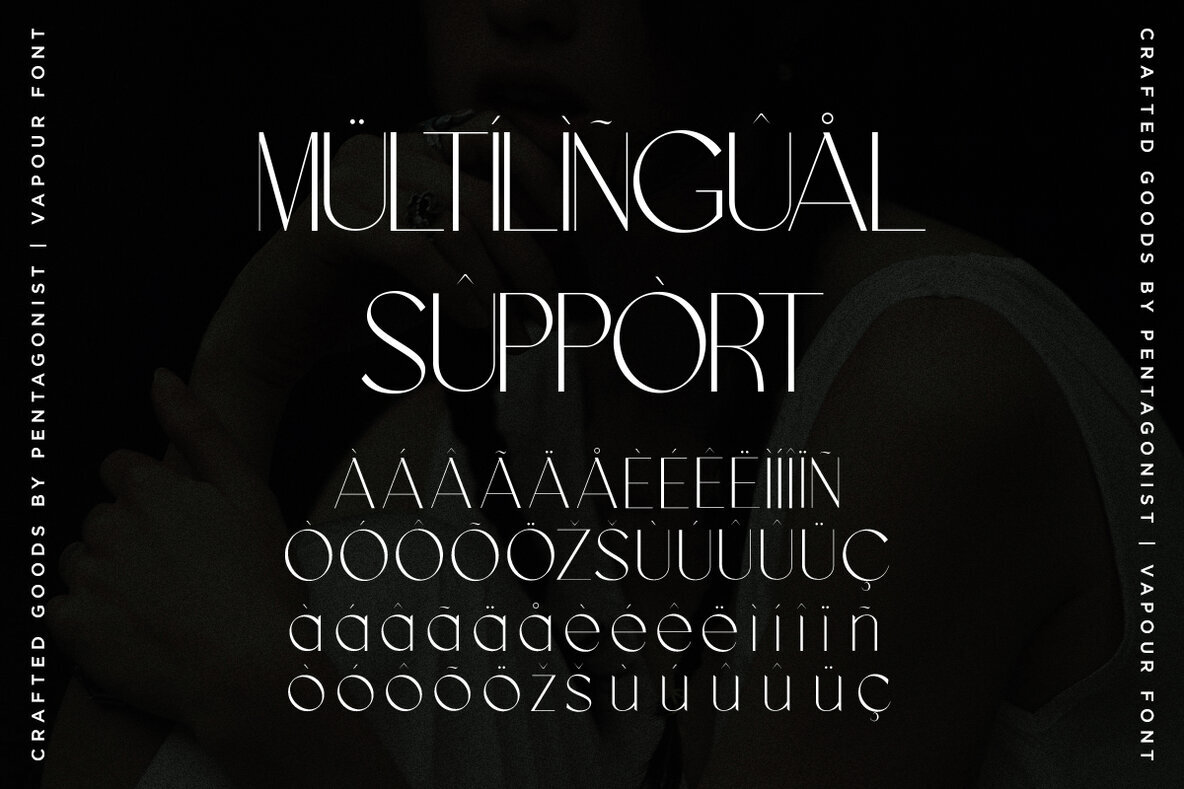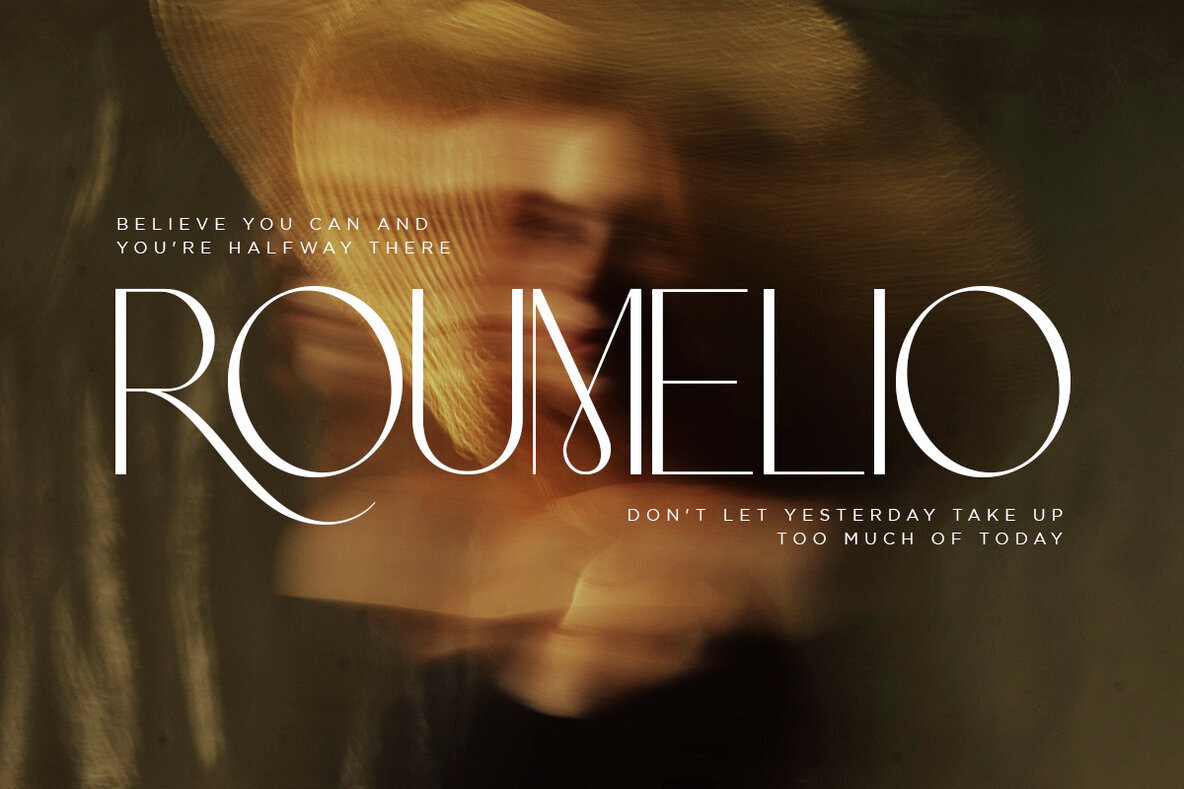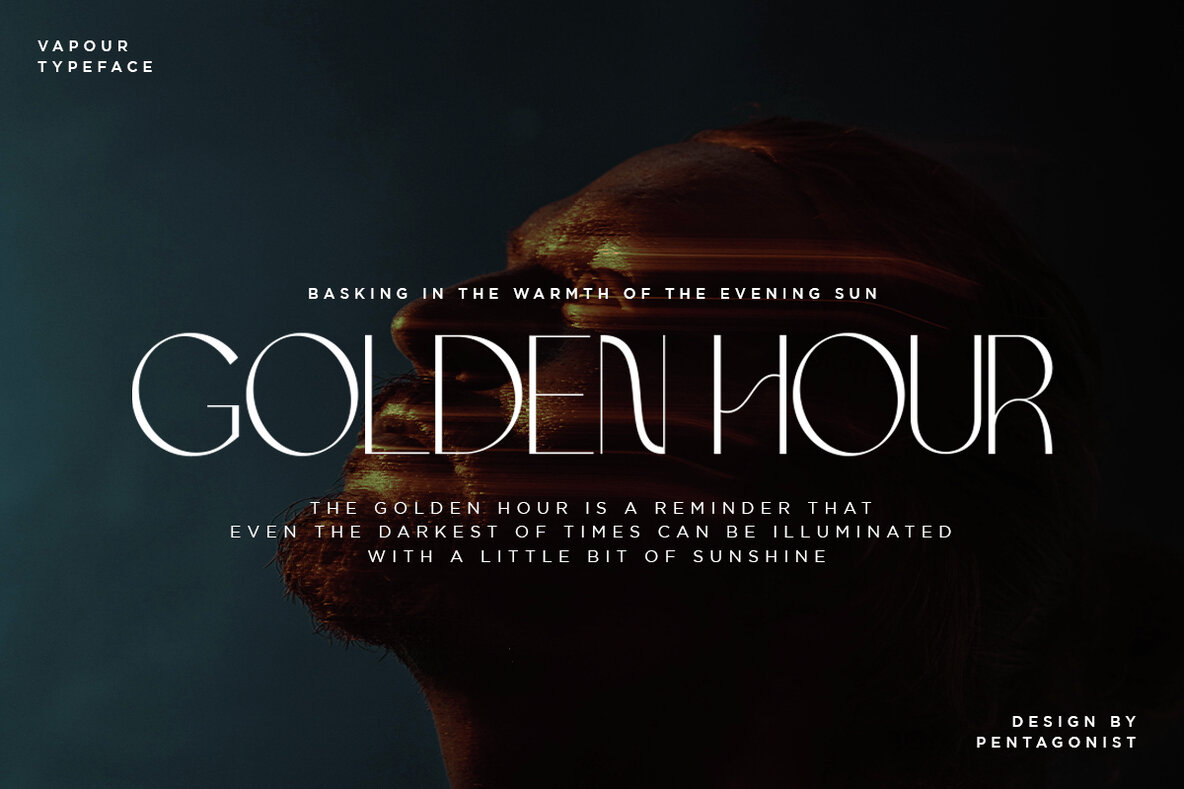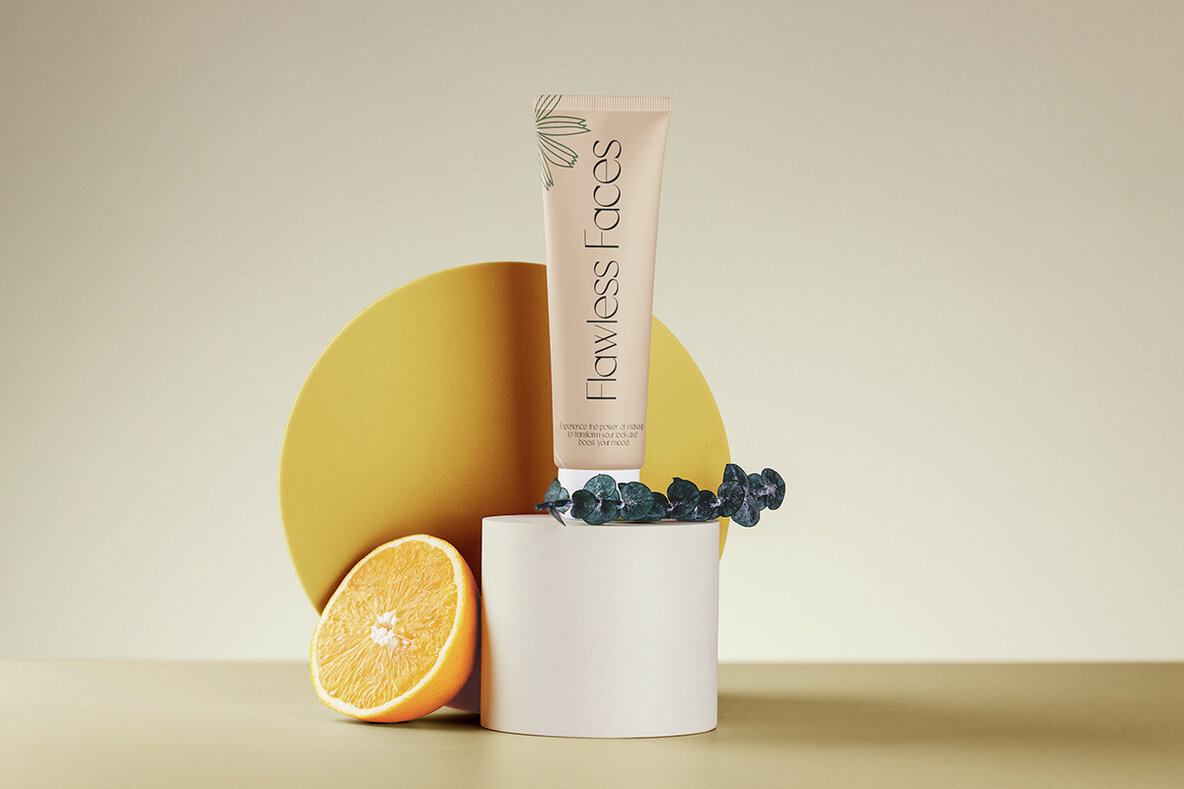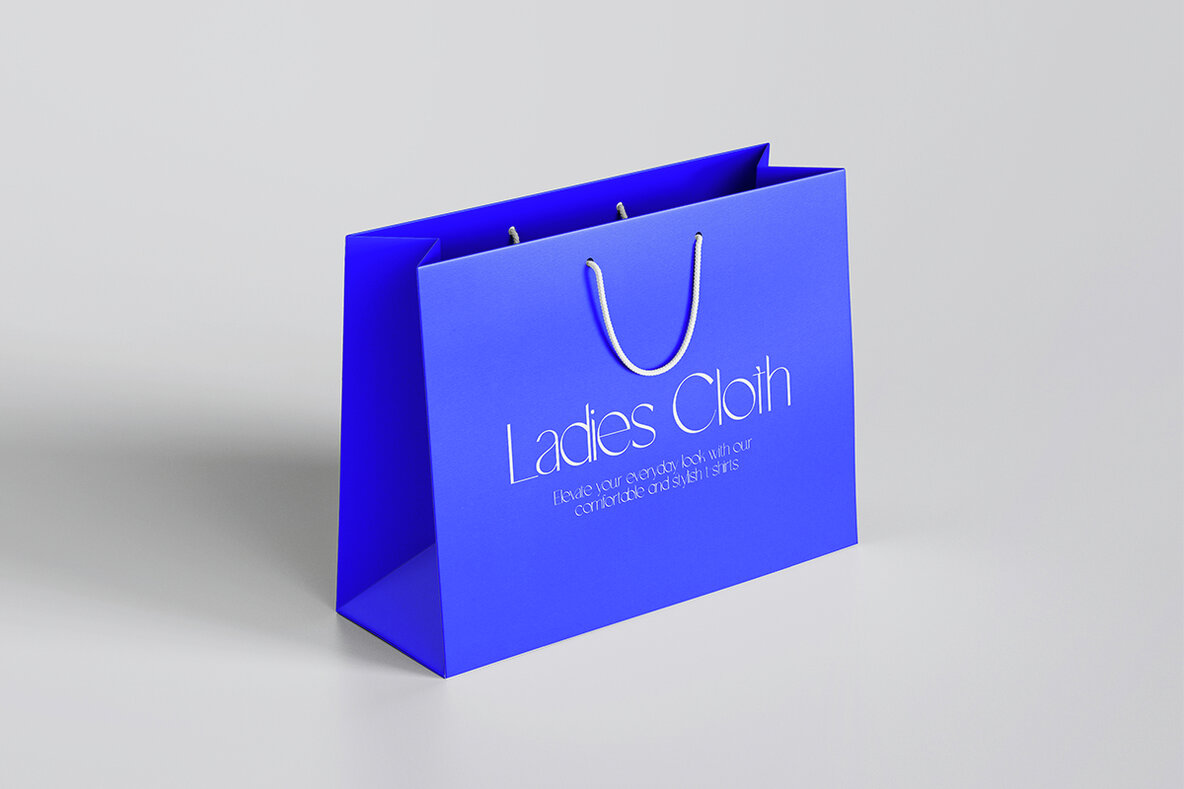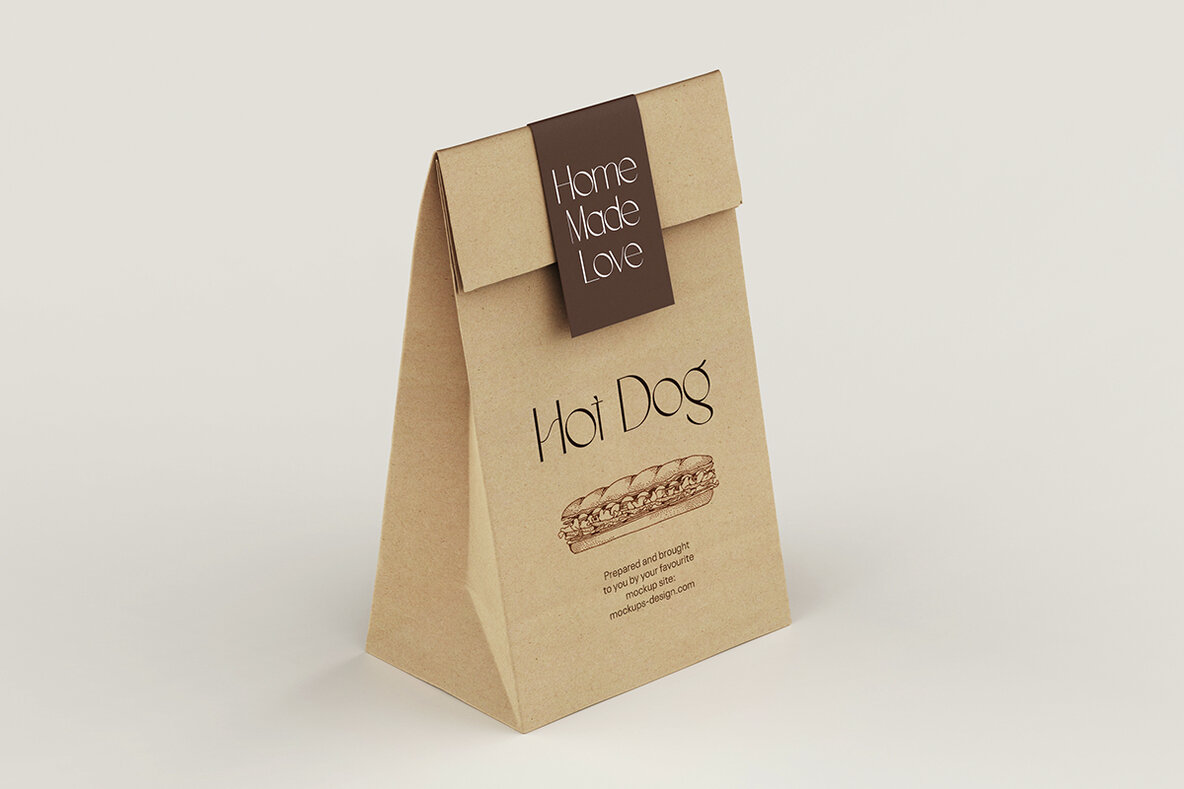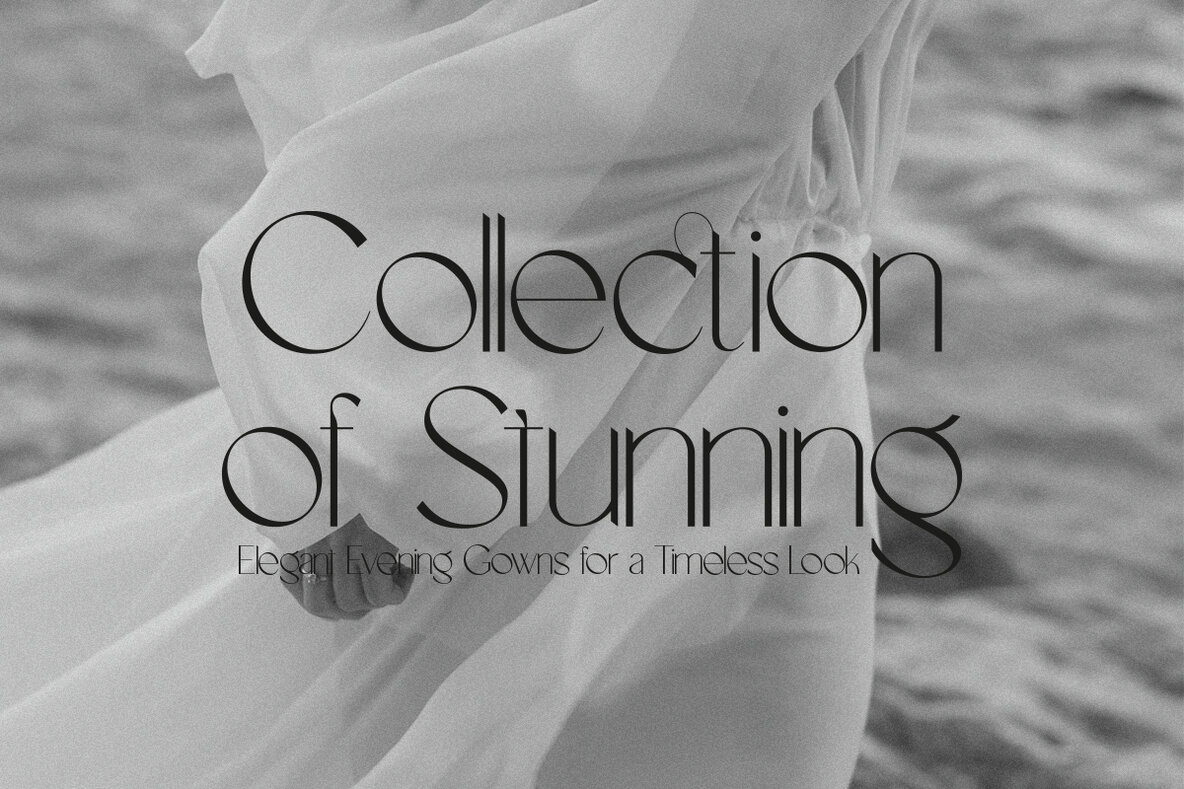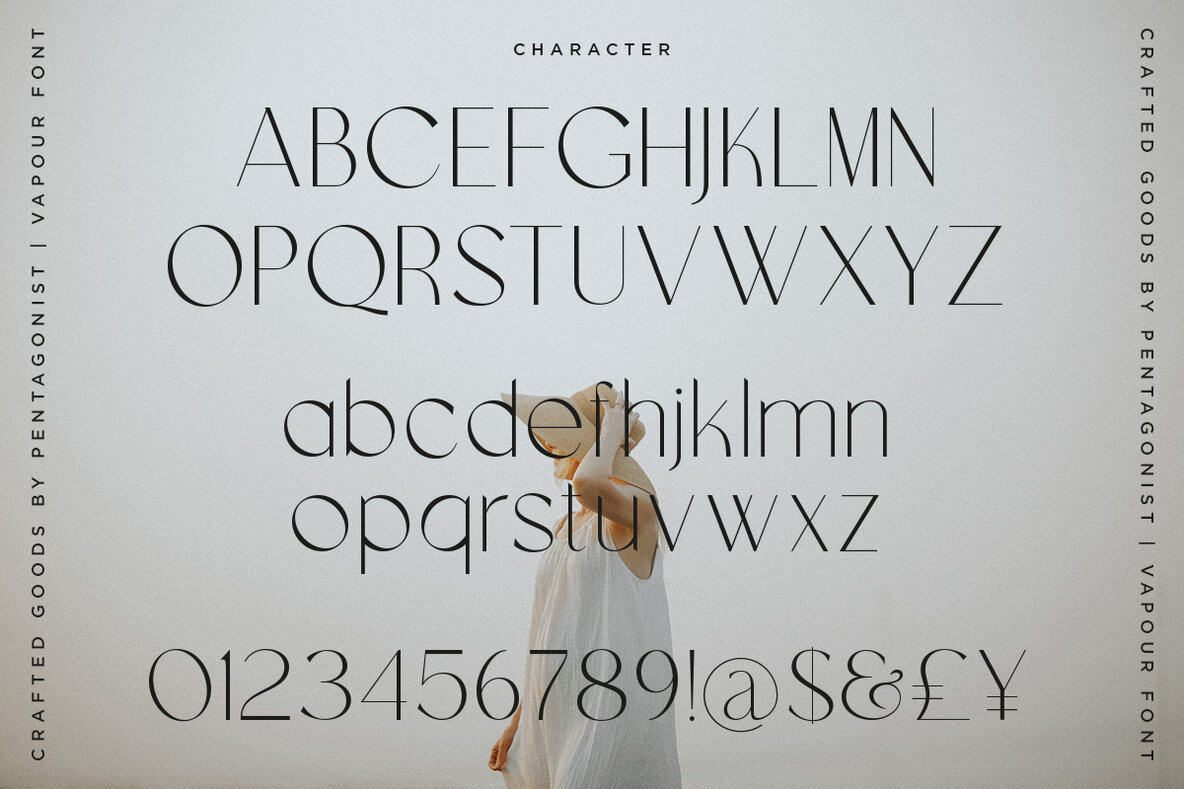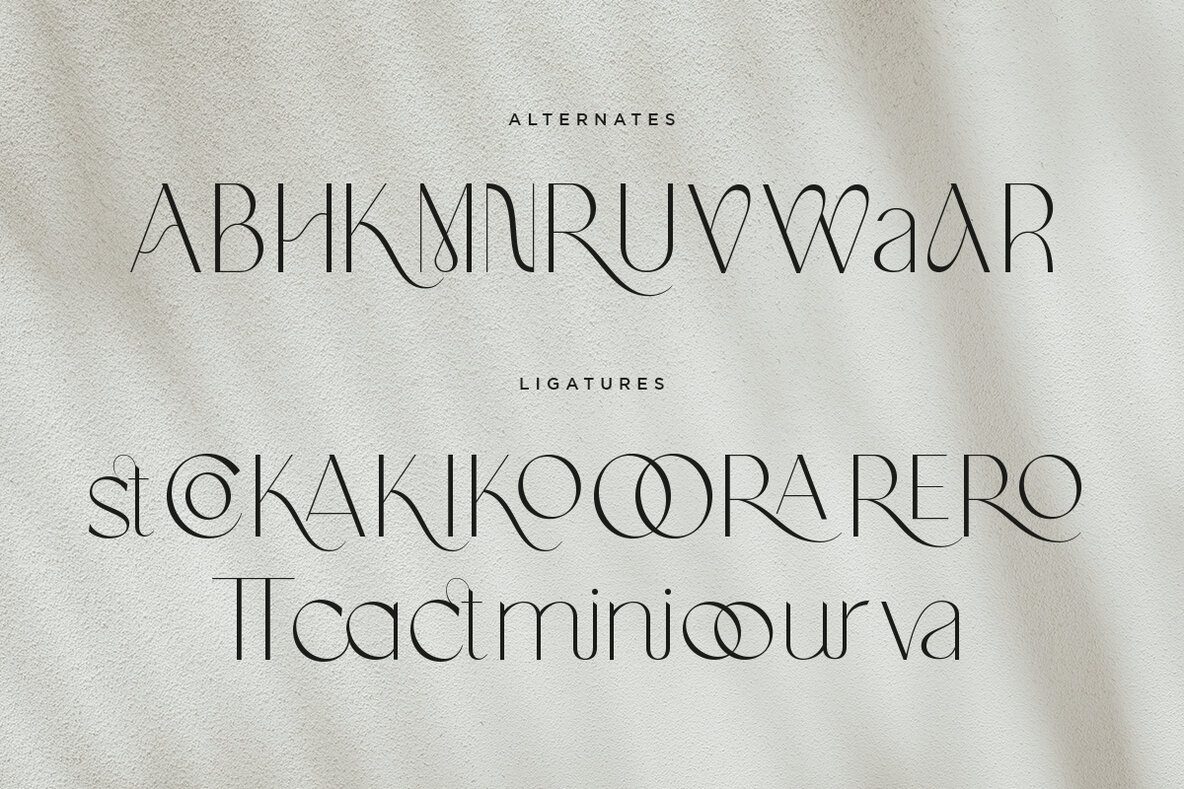
Vapour Font
vapour Regular
Vapour is a captivating serif font designed by Pentagonistudio, offering a blend of elegance and modernity. This typeface is enhanced with stylistic alternates and ligatures, providing versatile options for your creative projects. Vapour comes with a desktop license that permits installation on one user and two computers. Please note the following restrictions: No special software is required to use Vapour. It functions in any basic program or web application that supports standard fonts, making it easy to integrate into your workflow. Follow our shop for future updates, including additional glyphs and language support. If you desire a specific language addition or have suggestions for new features, feel free to reach out. Have a wonderful day!Vapour: Elegant Serif Font with Stylistic Flexibility